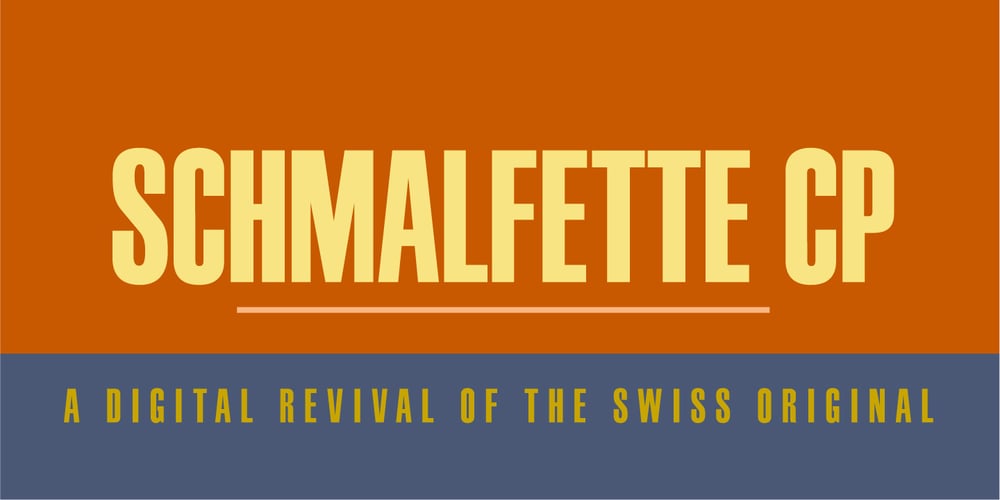
Schmalfette CP
Schmalfette CP font
Schmalfette CP Font Family was designed by Jason Anthony Walcott, Walter Haettenschweiler and published by CounterPoint Type Studio. Schmalfette CP contains 1 styles and family package options. SchmalfetteCP is the result of another collaboration between designers Jason Walcott and Rob King. King suggested that Walcott revive this wonderful and somewhat forgotten sans serif typeface from the mid 1950s. Originally designed by Walter Haettenschweiler in 1954, Schmalfette Grotesk was used for many years in the German magazine “Twen”. The typeface was notoriously hard to acquire at the time and graphic designers in the USA often resorted to cutting letters from the Twen magazines and reusing them in their own designs. Later, when digital type came along several typefaces very similar were created that claimed to be digital revivals of Schmalfette Grotesk. However, they are actually only loosely based on the original. The proportions are different and in some cases a lower case was added. The original font was all caps. At Rob King’s suggestion, Jason Walcott has strived to recreate the most faithful digital revival possible of the original Schmalfette Grotesk with the new version of SchmalfetteCP. In some cases small changes were made to accommodate today’s digital needs (e.g. web fonts), but anyone who has ever searched for this typeface now has a version available that most closely resembles Haettenschweiler’s original work. Schmalfette CP comes in OpenType format in both .ttf and .otf files and offers support for all Latin based and Eastern European languages.